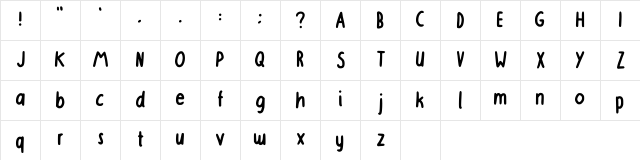
Jasleens Jassy Font Regular
Design Context for Jasleens Jassy Font Typeface
Jasleens Jassy Font offers clean, dependable letterforms without strong stylistic allegiance, making it a practical choice for designers who need flexibility.